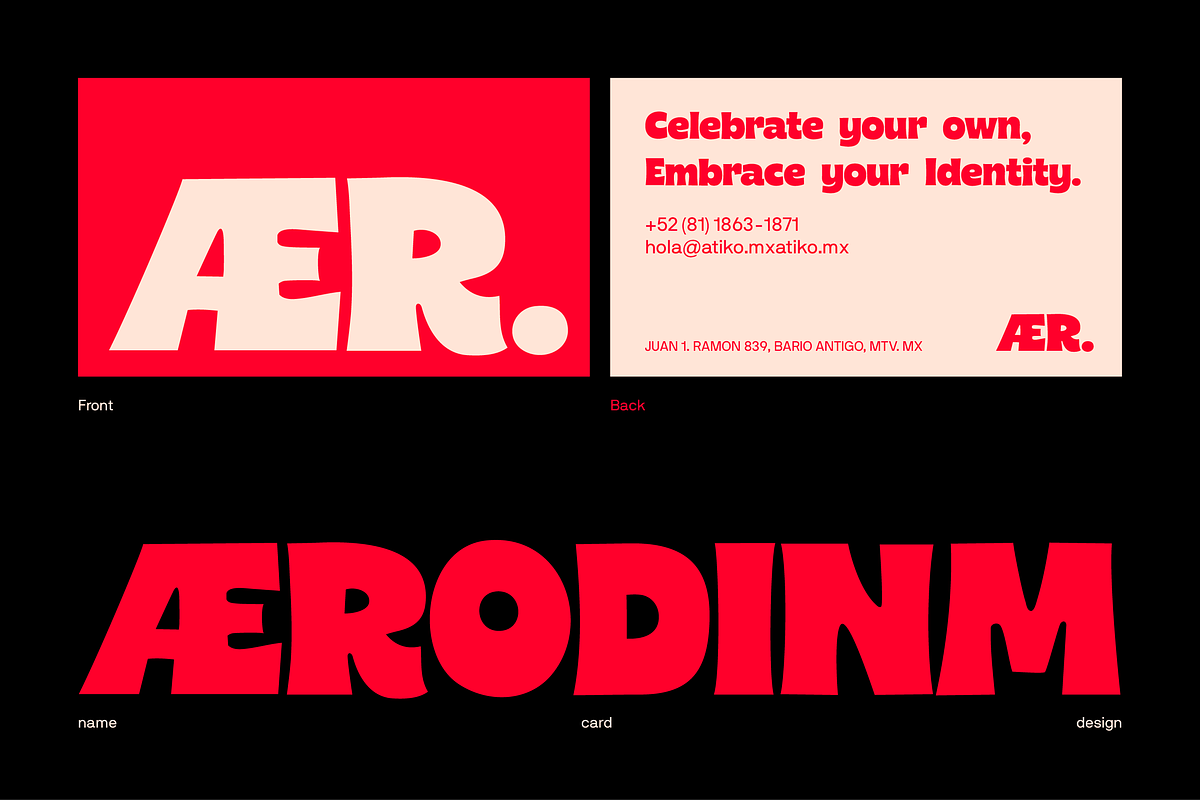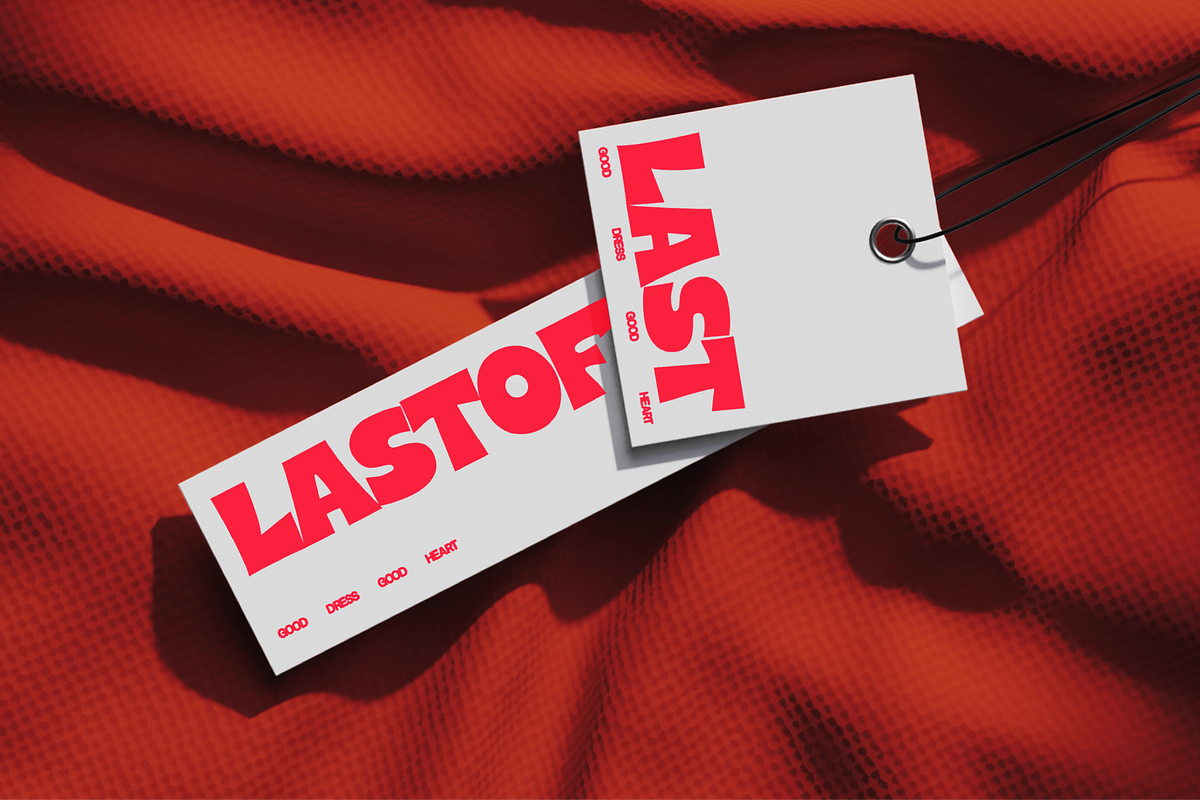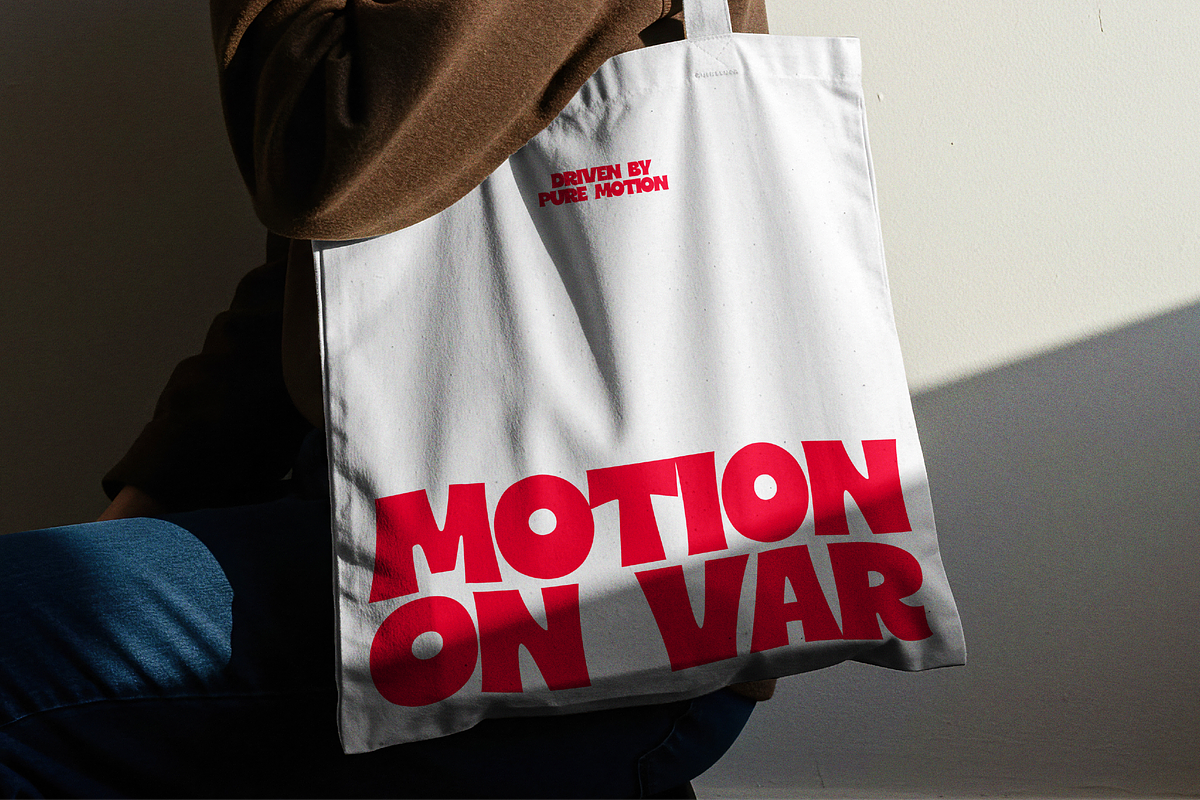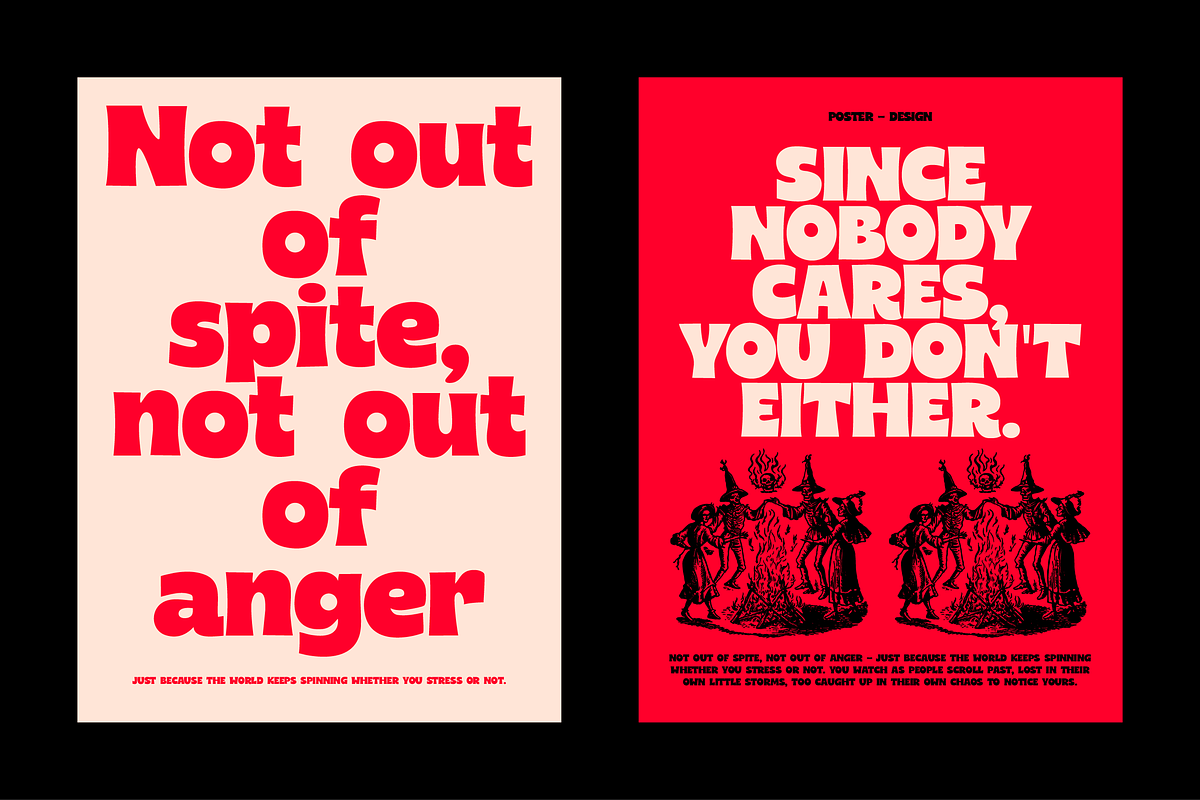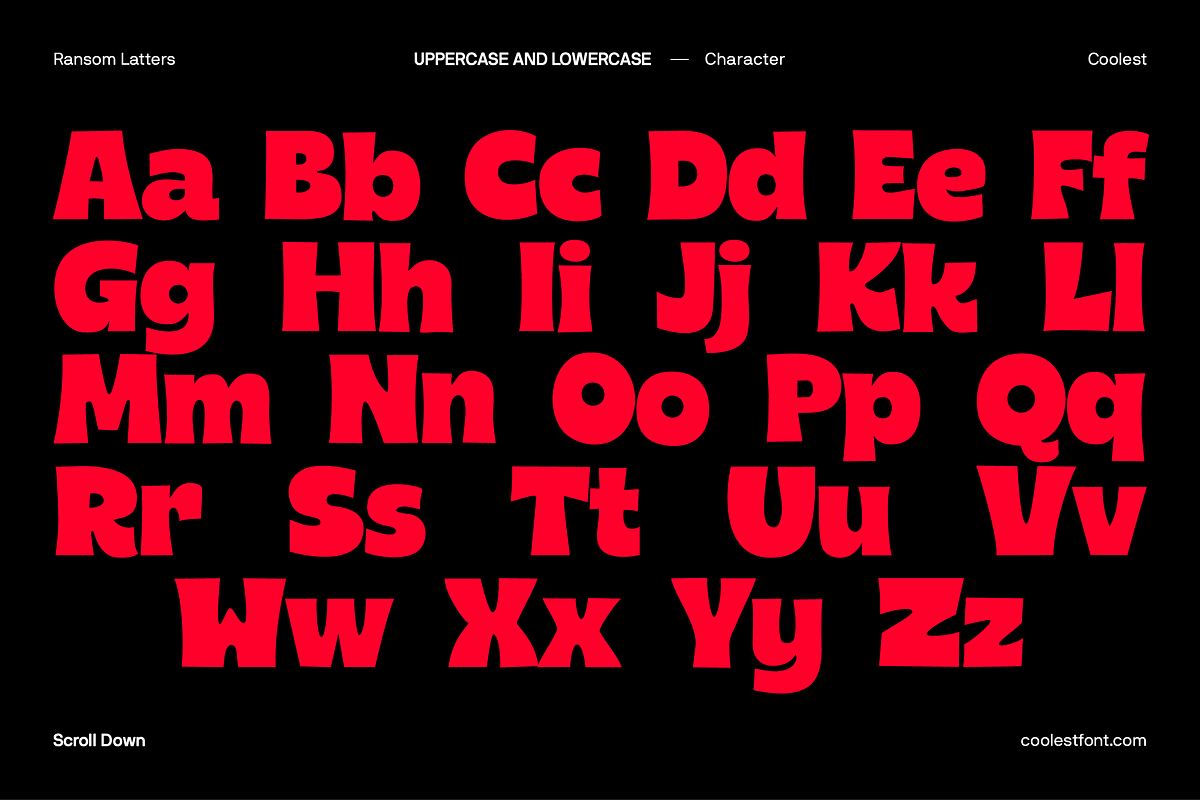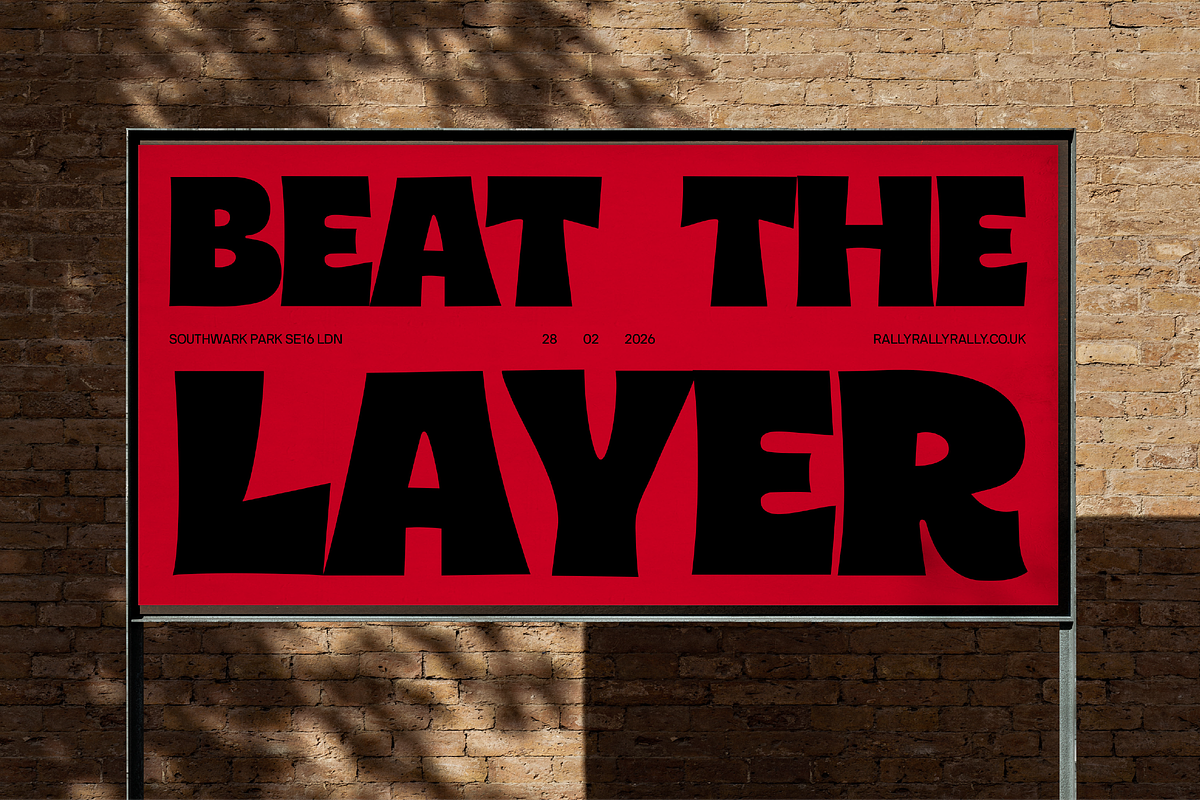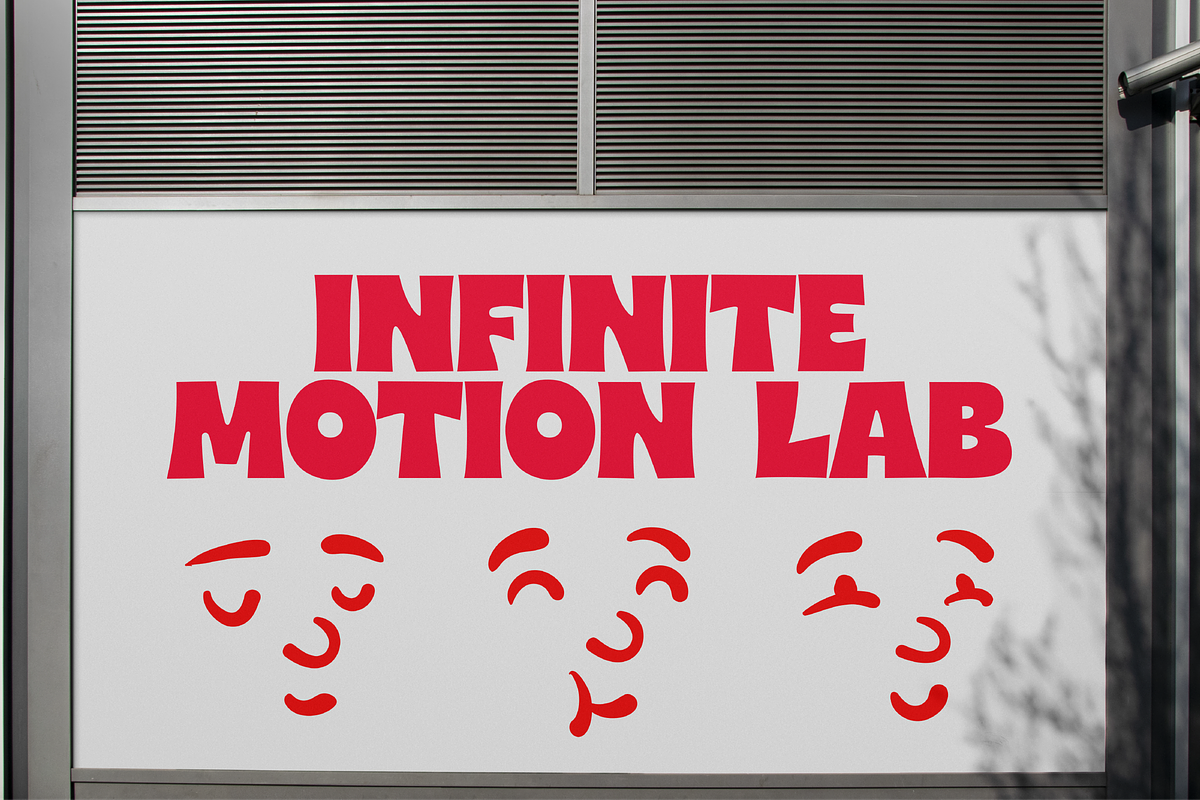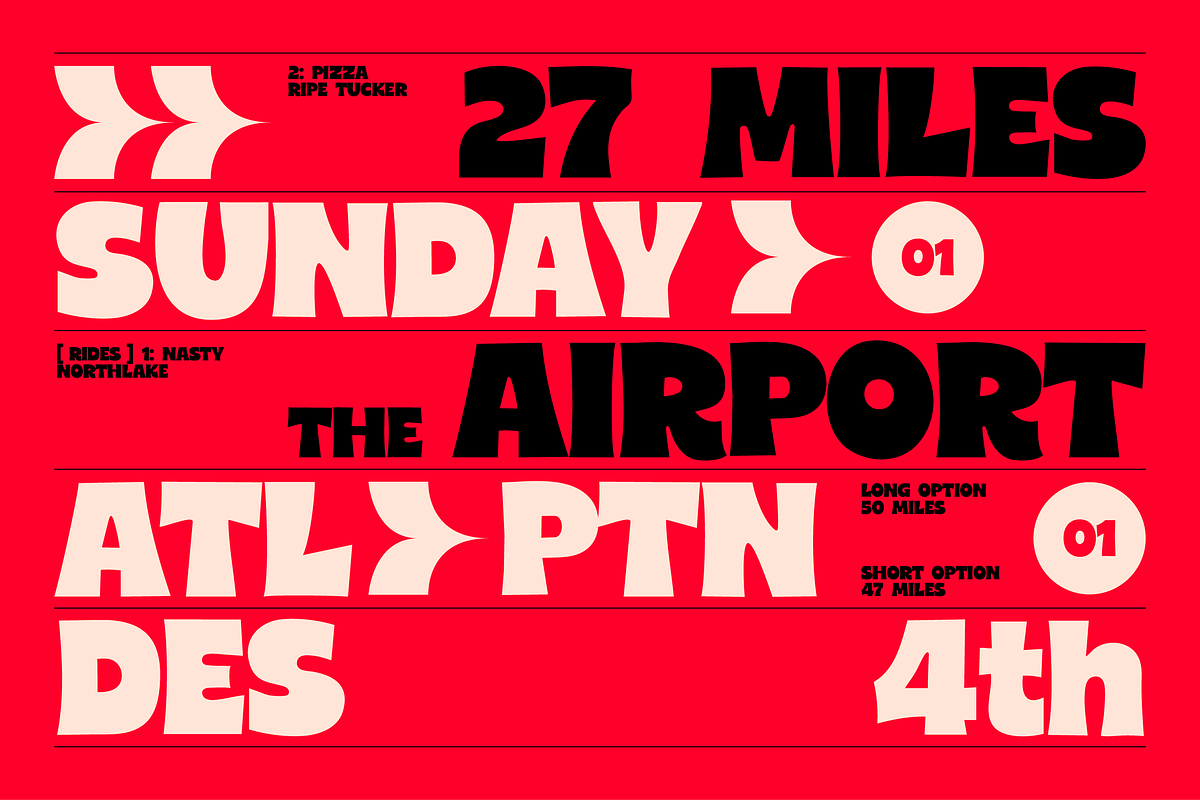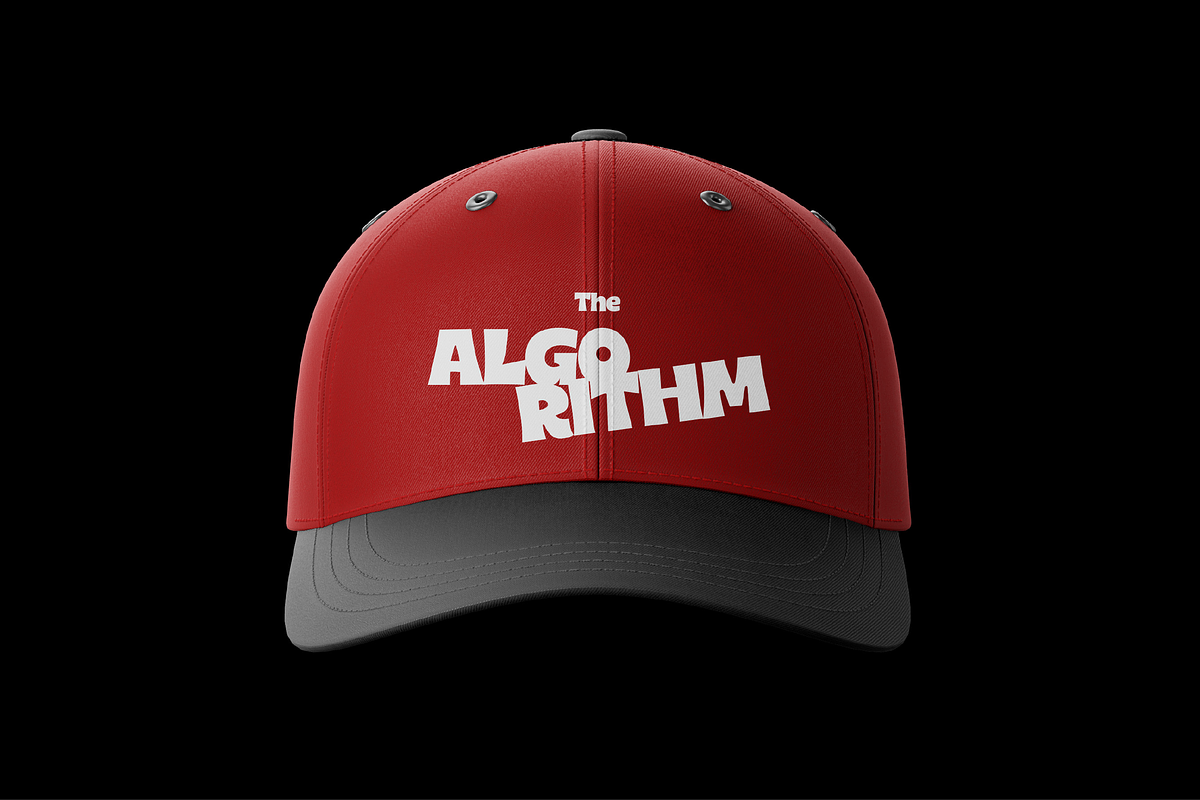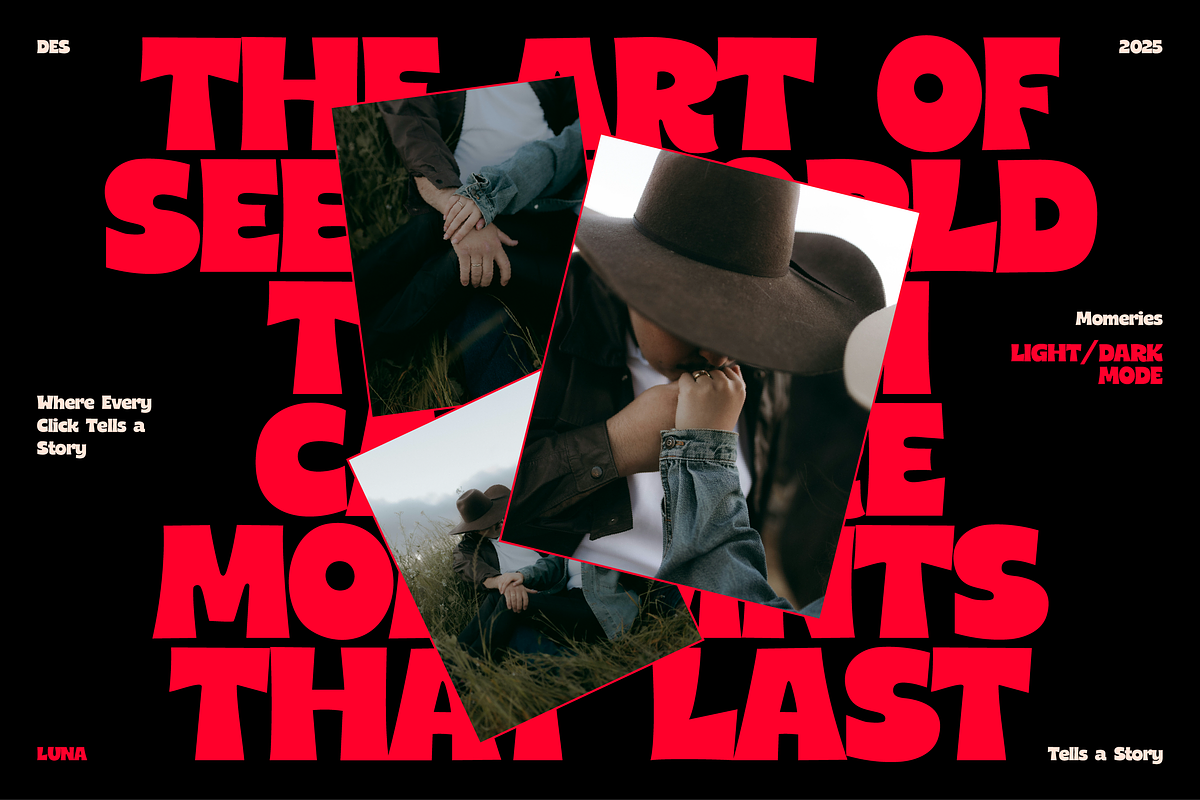
Carity Font – Bold Modern Display
Carity Font – Bold Modern Display Typeface
Carity Font is a bold, modern display typeface with chunky expressive shapes designed to make your visuals stand out instantly. This cool and confident font is perfect for designers, brands, agencies, and creatives who want strong, memorable typography for posters, logos, packaging, headlines, social media content, and editorial layouts. Carity combines playful curves with powerful structure, making it the ideal choice for eye-catching designs that demand attention.
Carity Font Perfect For :
- Branding & Logo Design
- Posters & Flyers
- Book & Album Covers
- Social Media Templates
- Packaging & Labels
- Website Hero Text
- Apparel & Merchandise
- Editorial Headlines